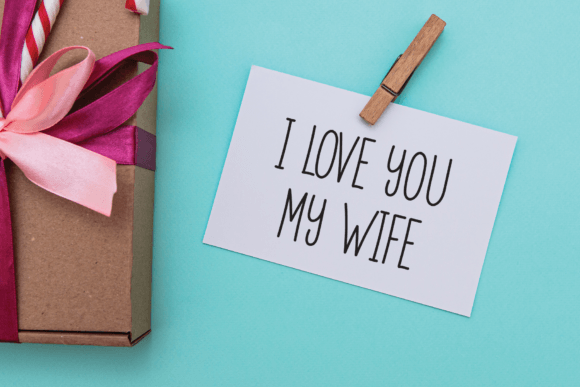
About Display Font Download
The Display Font Download is a fun and friendly handwritten typeface designed to bring joy and creativity to every project. With its playful curves and casual structure, this font is perfect for anyone looking to add a personal and approachable touch to their work. Whether you’re crafting handmade cards, designing digital content, or preparing presentations, Display has the flexibility and style to enhance your ideas.
A Handwritten Font with Personality
Display is not just a regular typeface—it’s a font that feels alive. Its rounded shapes and casual flow give it a unique personality that makes designs feel authentic. The Display Font Download captures the warmth of handwritten lettering while maintaining readability, making it useful for both creative and professional projects.
Perfect for Crafts and DIY Projects
Handmade projects always benefit from fonts that feel personal and artistic. Display is ideal for crafts such as scrapbooking, gift tags, embroidery patterns, and wall art. Crafters enjoy how the Display Font Download blends playfulness with clarity, making it easy to use in both large and small designs.
Great for Greeting Cards and Invitations
Greeting cards need fonts that express warmth and personality, and Display is a natural fit. From birthday cards to holiday greetings, this font delivers charm and friendliness. The Display Font Download turns simple text into heartfelt messages, ensuring your cards stand out and leave a lasting impression.
Ideal for Digital Design
In the digital world, where visuals matter more than ever, Display offers a fresh way to enhance graphics and layouts. Social media posts, blog headers, and marketing visuals all look more approachable with this font. The Display Font Download works seamlessly in design platforms such as Canva, Photoshop, and Illustrator, giving creators full flexibility.
A Useful Font for Presentations
Presentations require text that is easy to read while also engaging. Display strikes this balance perfectly. Its bold handwritten style draws attention without overwhelming the audience. Teachers, students, and professionals alike will find the Display Font Download helpful for slideshows and classroom materials.
Versatile Across Creative Projects
The versatility of Display is one of its strongest assets. It can be used across personal and professional design fields, from crafts and cards to branding and advertising. The Display Font Download adapts well to different styles, making it an essential typeface in any creative toolkit.
Why Designers Choose Display
Designers love fonts that are both functional and expressive. Display checks both boxes by offering style and readability in one package. Its casual handwritten look makes it approachable, while its clarity ensures it remains practical. The Display Font Download is a go-to option when projects need charm and reliability.
Add Playfulness to Your Designs
If you want a typeface that feels fun, approachable, and creative, the Display Font Download is the perfect choice. From crafts and greeting cards to digital graphics and presentations, this font adds a friendly touch to every project. Download Display today and enjoy a handwritten font that truly stands out.